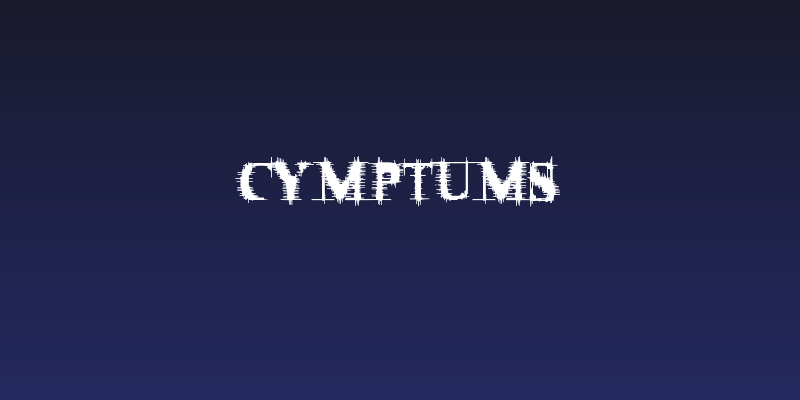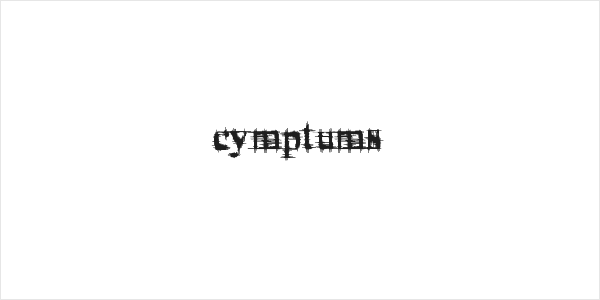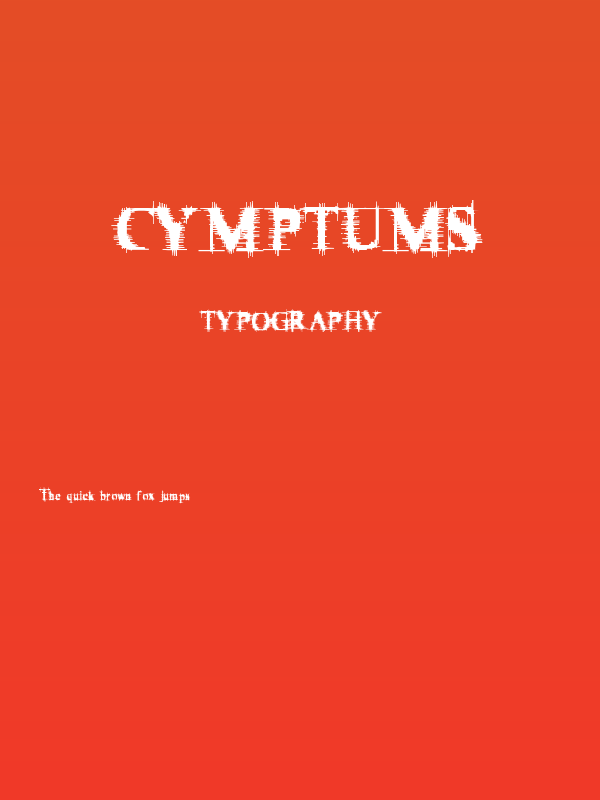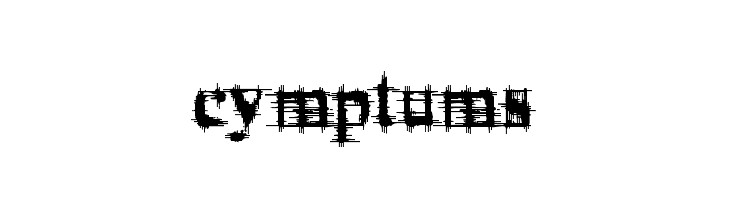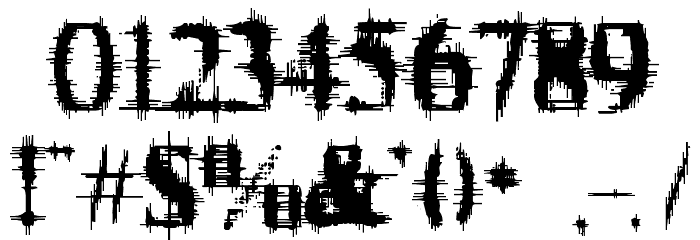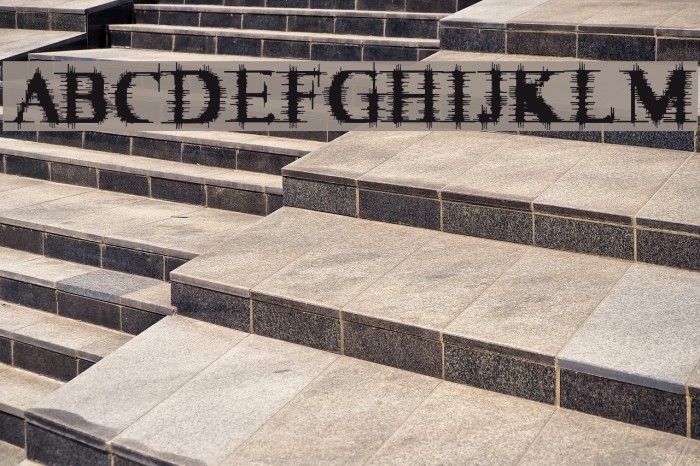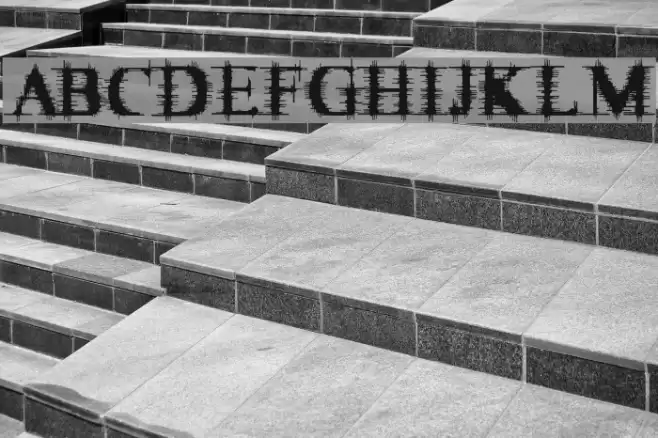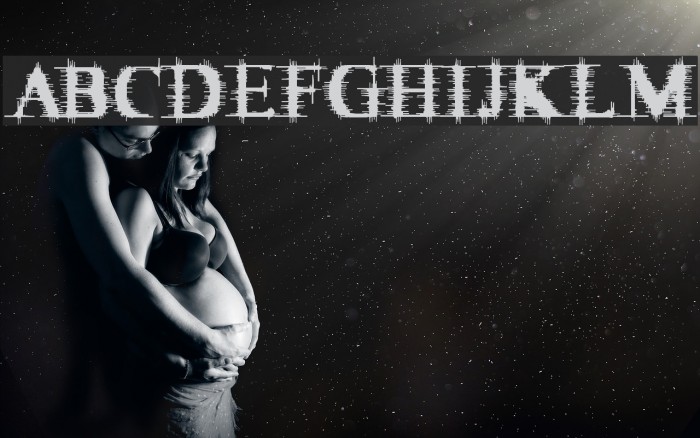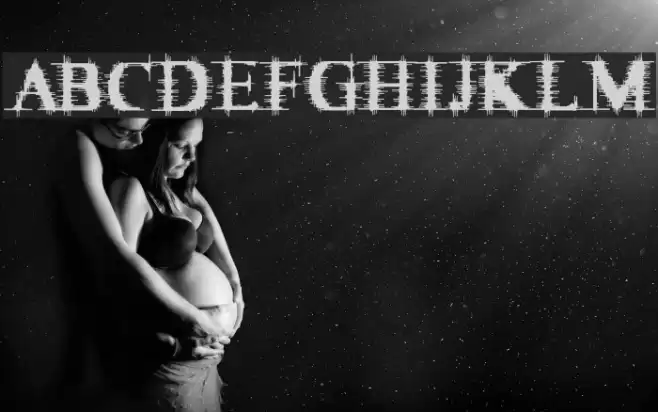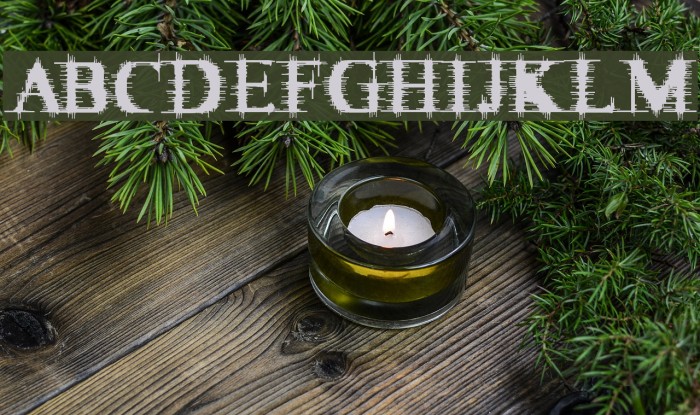
cymptums Font
cymptums Description
This font features a highly distressed and textured appearance, with an edgy and chaotic style. The characters are bold and have a rough, jagged outline that gives them a unique, grunge-like aesthetic. The uppercase and lowercase letters maintain a consistent height, while numbers and special characters follow the same distressed pattern. The font's irregularities and sharp edges make it stand out, providing a sense of movement and energy. It's ideal for projects that require a bold statement or an artistic touch, such as album covers, posters, or themed events.
| Proposed Projects | Ideal for album covers, posters, themed events, and artistic designs. |